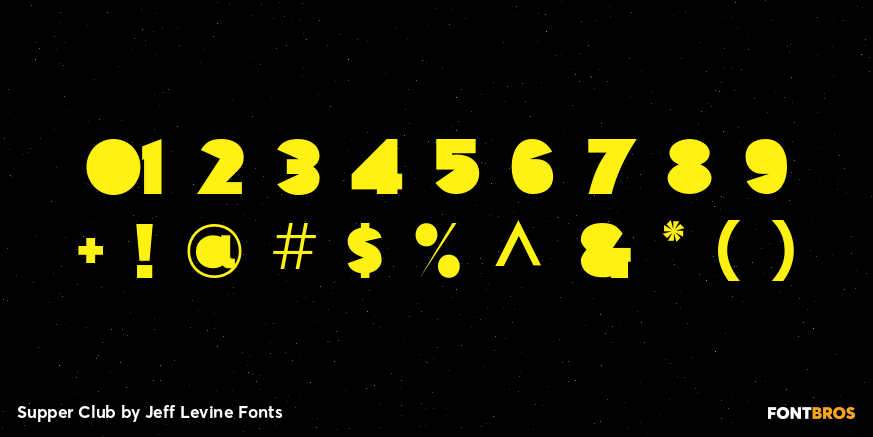
Supper Club
After creating the all-caps version of Supper Club JNL, a conversation between Jeff Levine and fellow font designer Ray Larabie brought forth the idea that one of Ray's freeware fonts had a lower case that would perfectly fit Jeff's design.
With Ray's permission, Jeff adapted the lower case to his capital letters and the final version of Supper Club was born.
Two separate ideas become one stylish Art Deco type design.